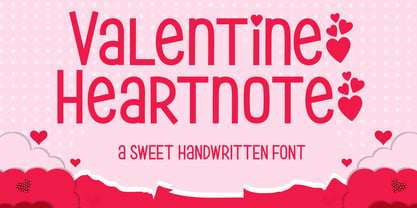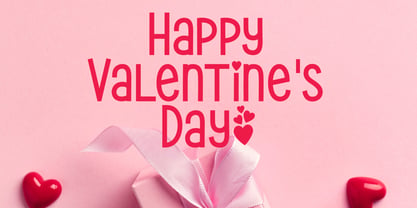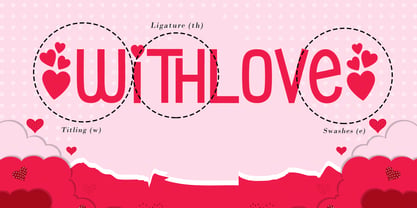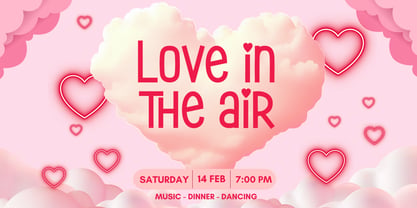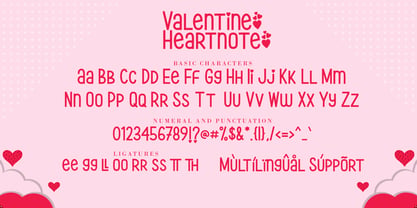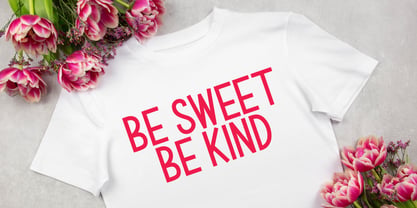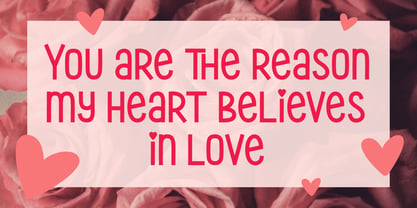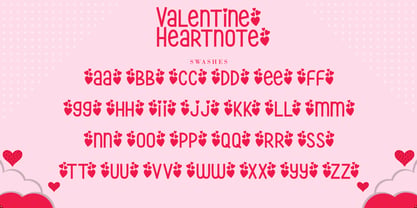
Valentine Heartnote
von AEN Creative Studio
Die Schriftfamilie Valentine Heartnote wurde von Agung Eko Nugroho entworfen und von AEN Creative Studio veröffentlicht. Valentine Heartnote enthält 2 Stile und Familienpaketoptionen. Mehr über diese Familie
Valentine Heartnote features bold, expressive strokes combined with charming heart accents on the letters i and j, creating a playful yet romantic. Designed to capture warmth and affection, this font is perfect for Valentine’s Day projects, love letters, greeting cards, and romantic quotes. Its bold handwritten style ensures strong readability while still maintaining a soft feel. Ideal for social media posts, digital invitations, stickers, mugs, apparel, crafting projects, and heartfelt designs that need a touch of love and sweetness.
Designer: Agung Eko Nugroho
Foundry: AEN Creative Studio